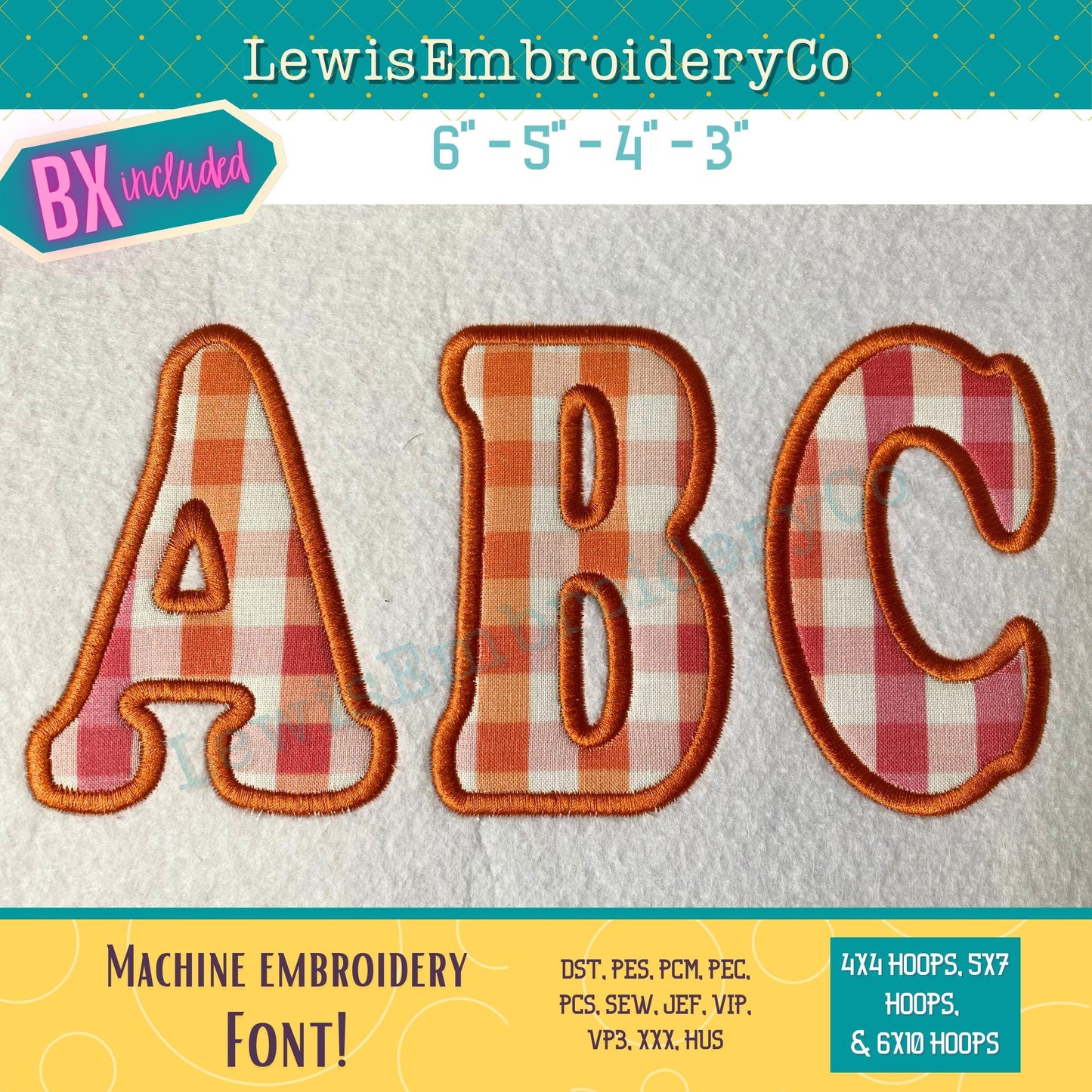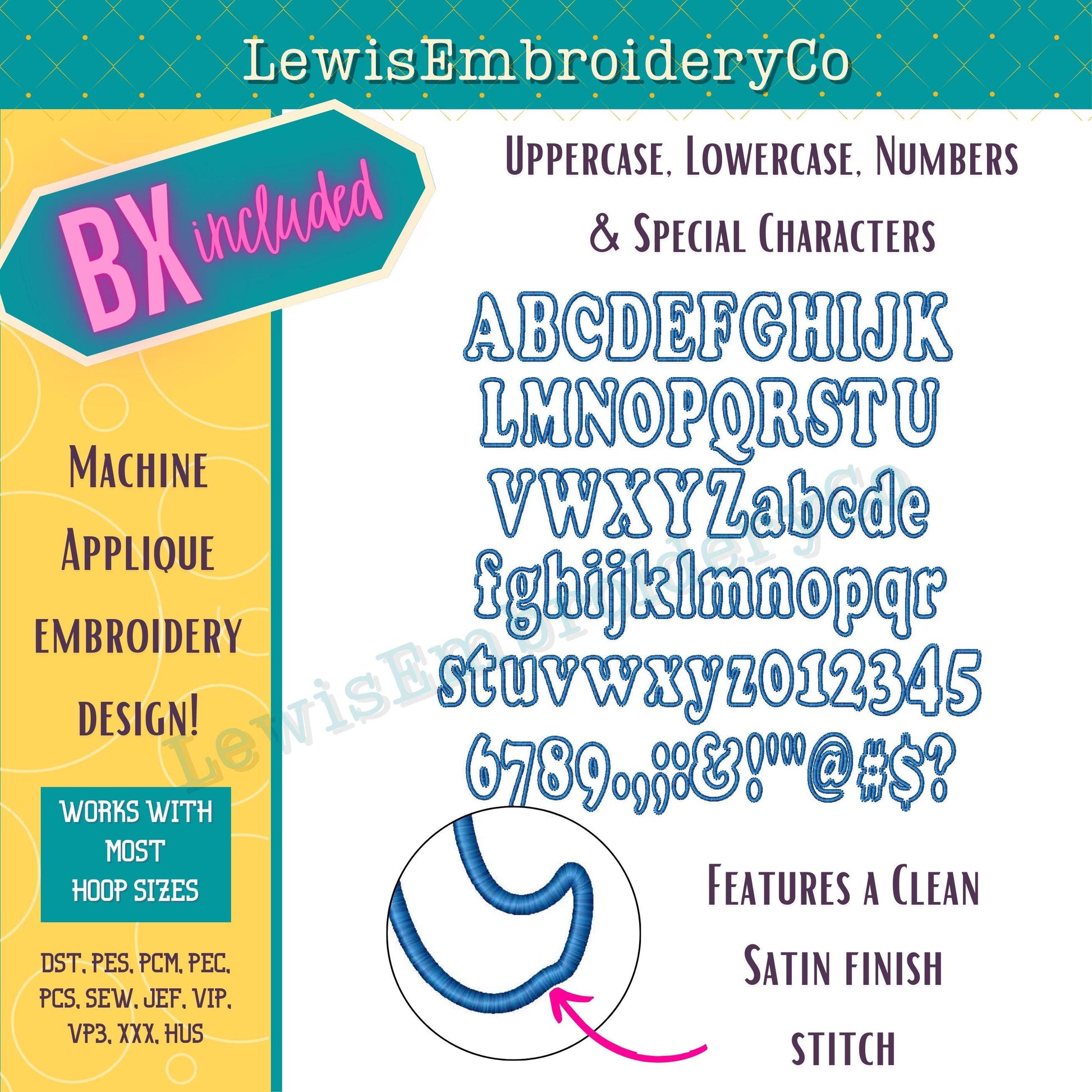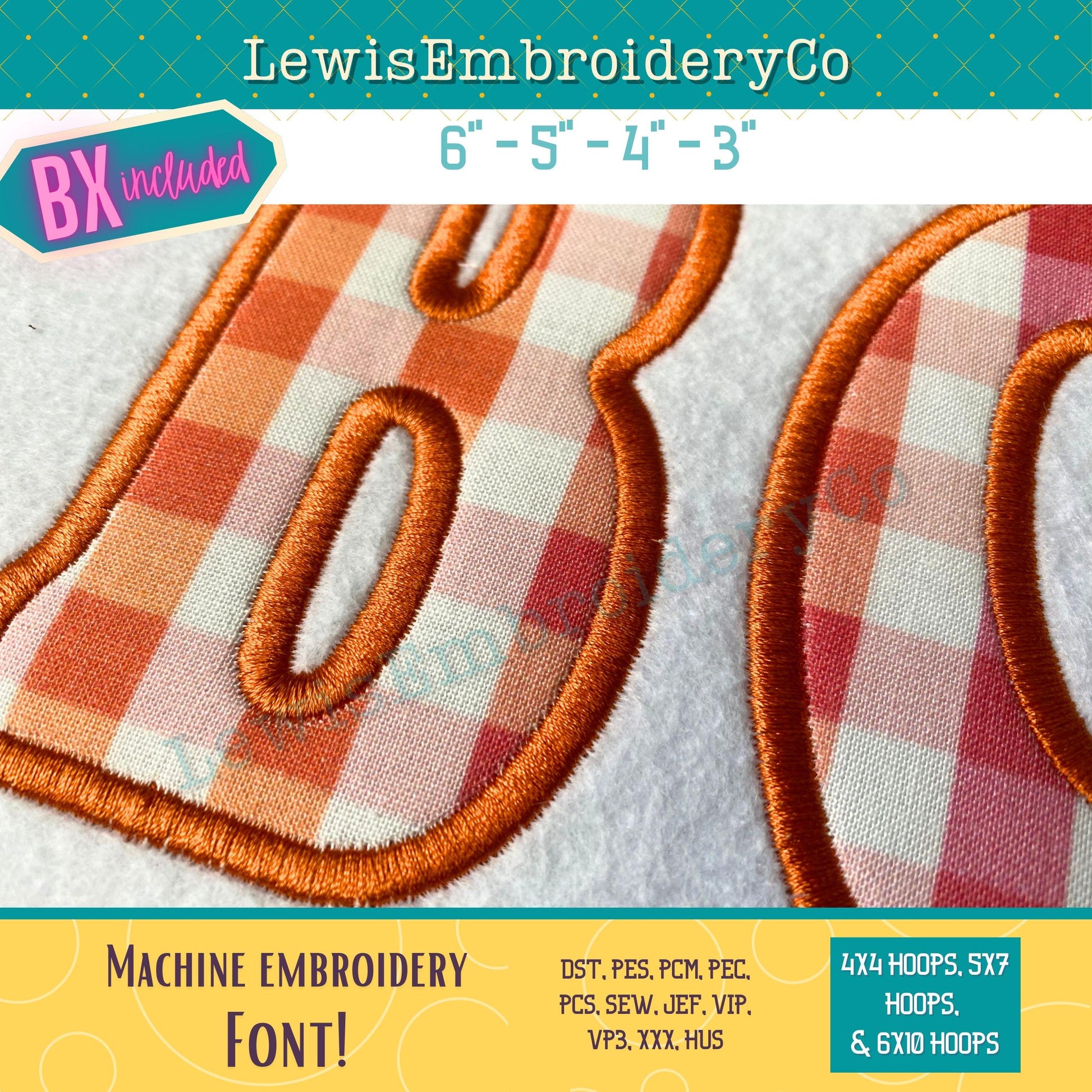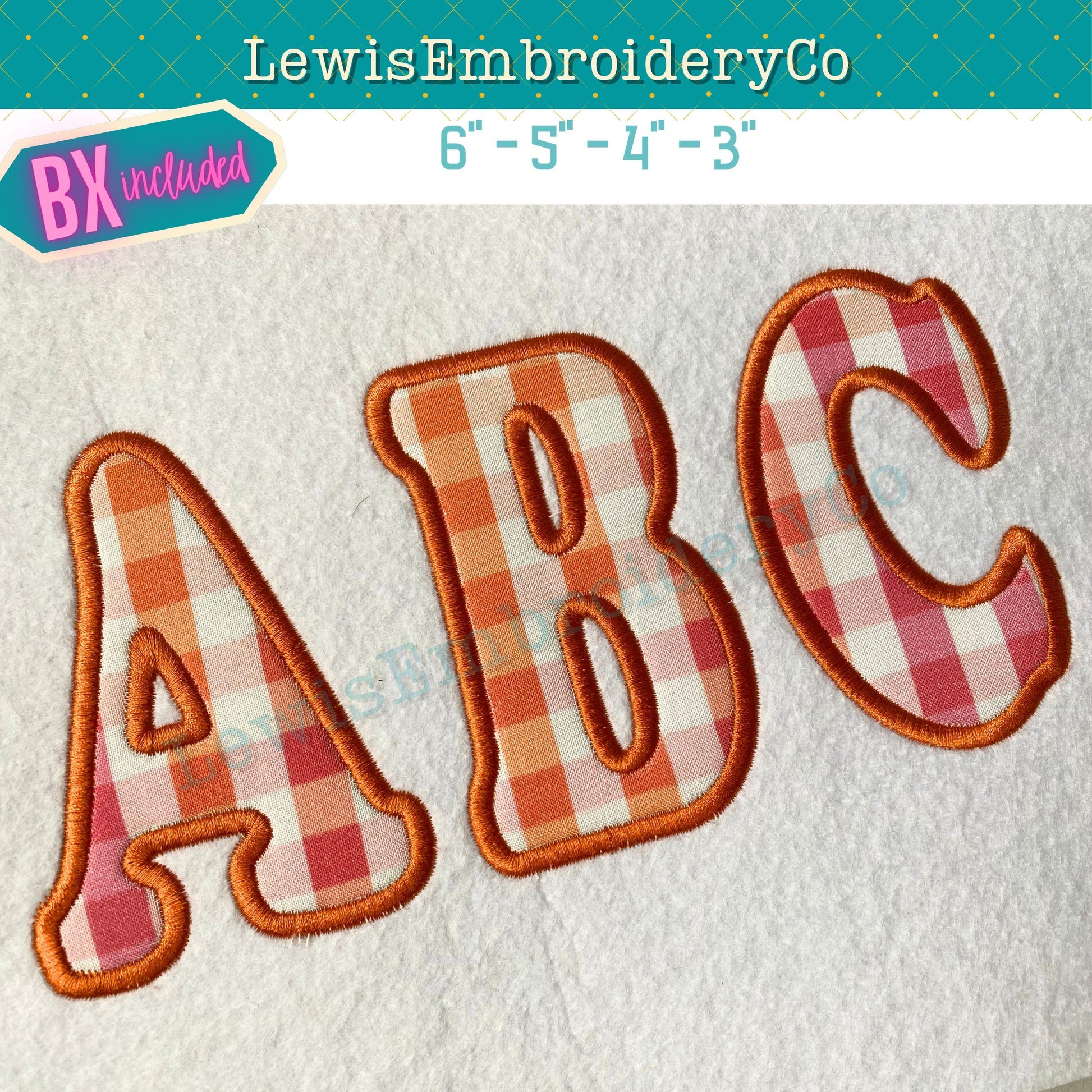
Cooper Applique, Machine Embroidery Font - With BX - (PDF Tutorial Included)
Narrow Cooper Applique Embroidery Font - Birthday Applique Alphabet - Satin Applique Embroidery Font - BX Font - Applique Numbers
This fun font will add a nice touch to any of your projects!